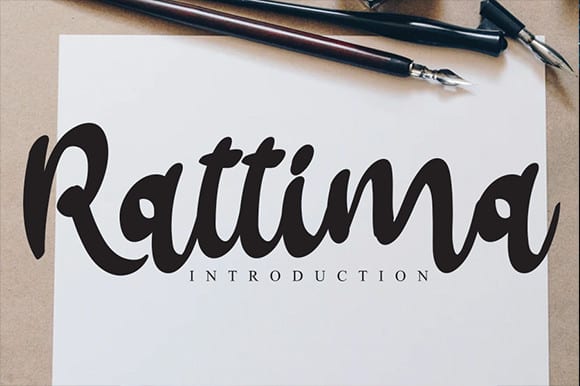
Rattima Bold Script Font
Rattima Bold Script Font – the latest style letters are perfect for wall displays, wedding invitations, social media post logos, advertisements, product packaging, product designs, labels, photography, watermarks, invitations, stationery, and any project that requires taste handwriting.